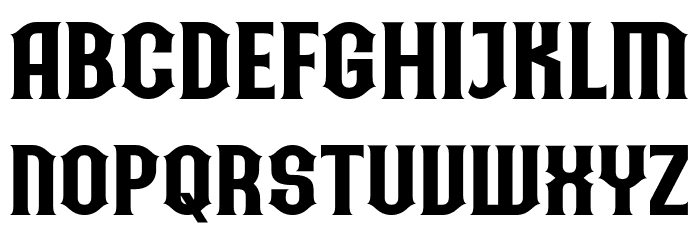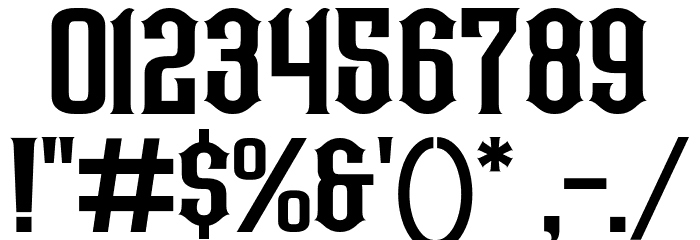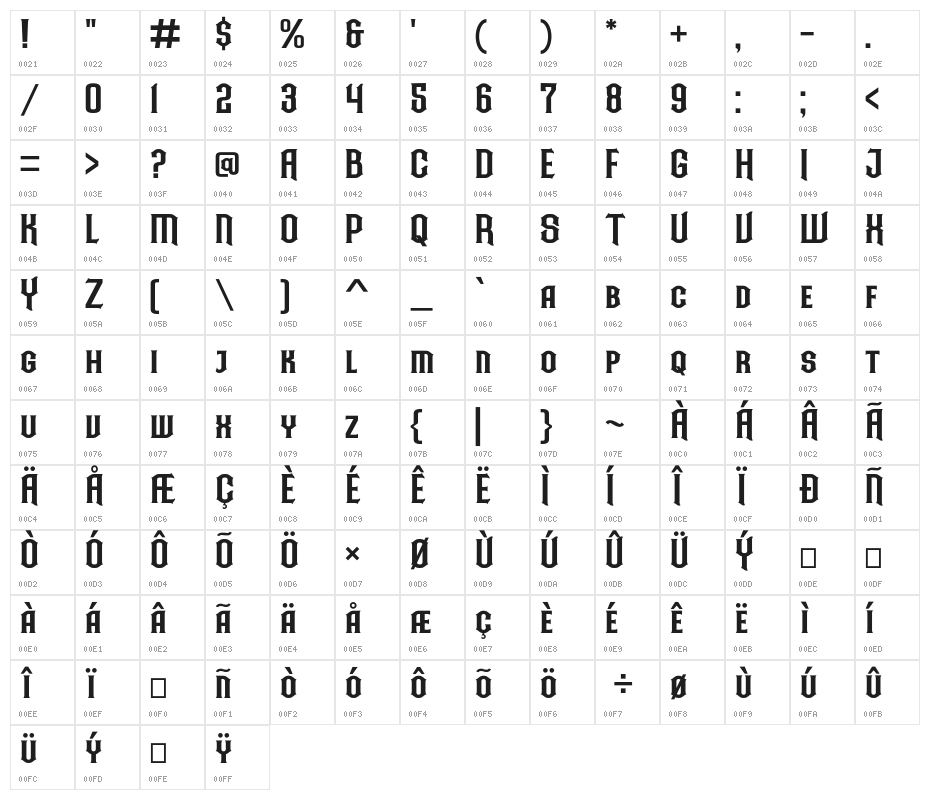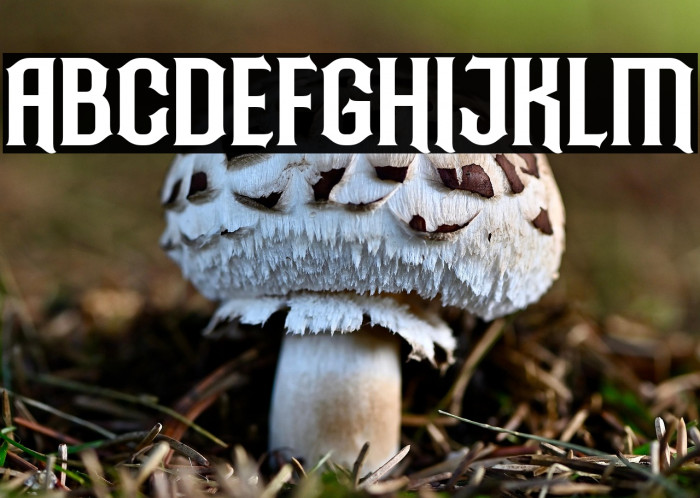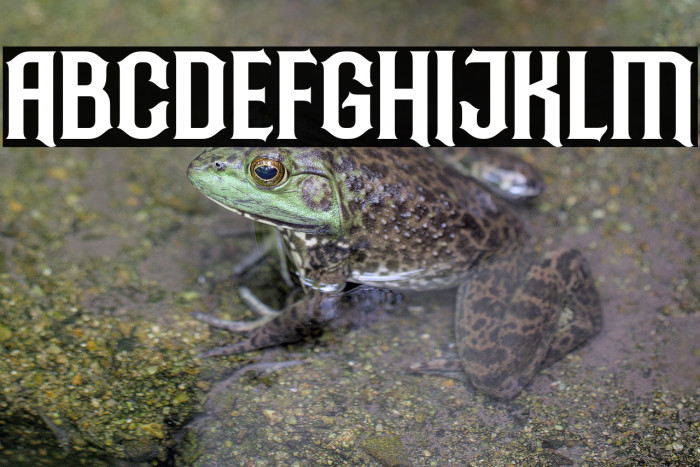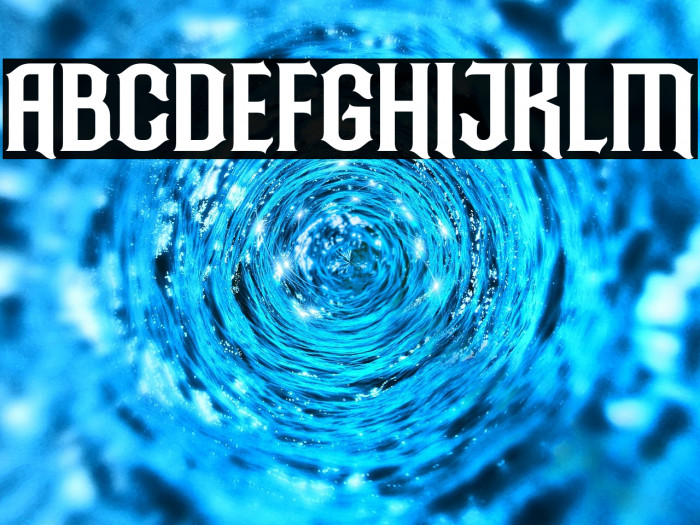
Ardillah Kafi Font
This font exhibits a bold and striking blackletter style, characterized by its sharp, angular lines and dramatic presence. The uppercase and lowercase letters maintain a consistent height, creating a uniform appearance. The numerals and special characters are designed to match the overall aesthetic, with thick strokes and pointed edges. This font's design is reminiscent of traditional Gothic scripts, yet it incorporates modern elements that enhance its readability and visual impact. The spacing between characters is tight, contributing to its compact and cohesive look.
A bold blackletter font with sharp, angular lines and a dramatic presence.
- Font: Ardillah Kafi
- Proposed Projects: Ideal for projects requiring a medieval or Gothic theme, such as book covers, posters, or branding for historical events.
- Category: Blackletter
- Character Spacing: Tight
- Overall Style: Vintage